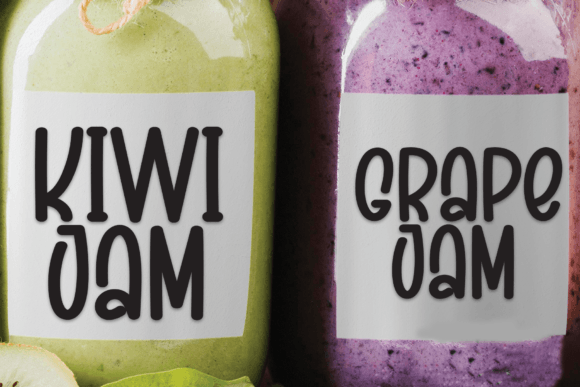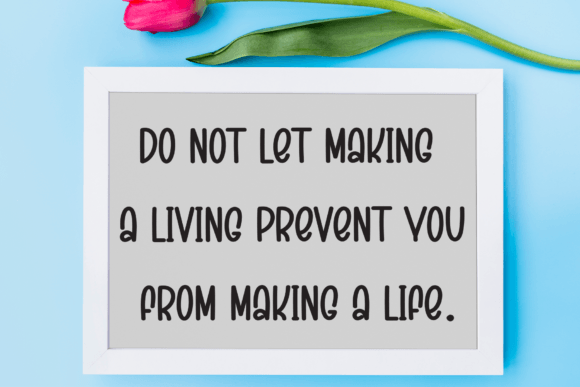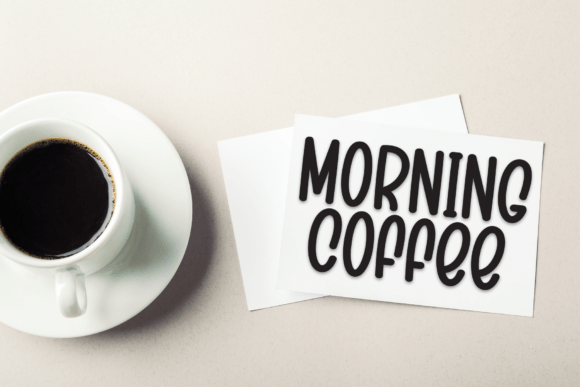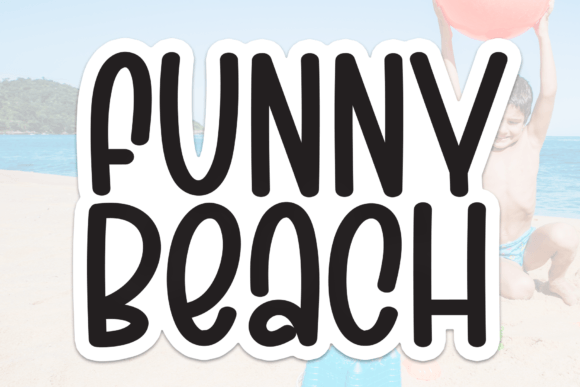
Introduction to Funny Beach Font
Funny Beach is a sweet and friendly handwritten font.
Key Features of Funny Beach Font
Why Choose Funny Beach Font?
Funny Beach Font offers exceptional quality and versatility, making it a valuable addition to your design toolkit. Whether you’re creating for personal projects or commercial use, Funny Beach Font delivers professional results.